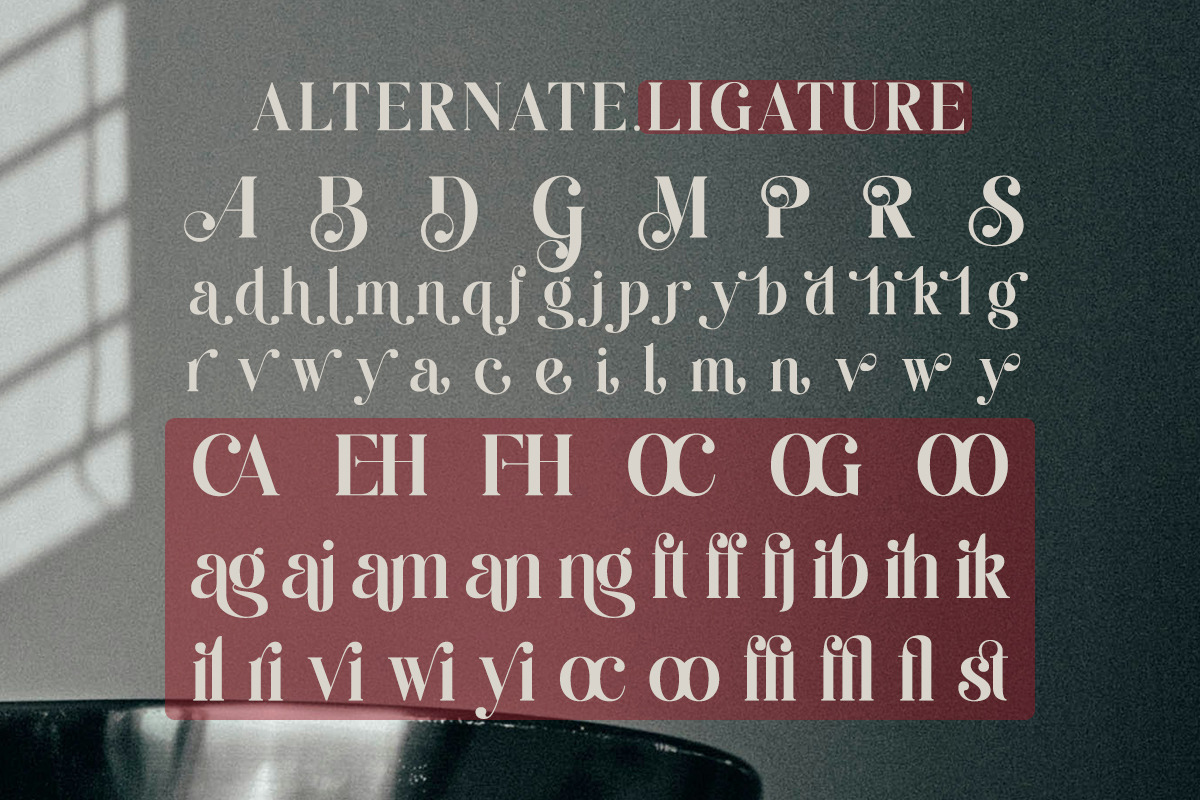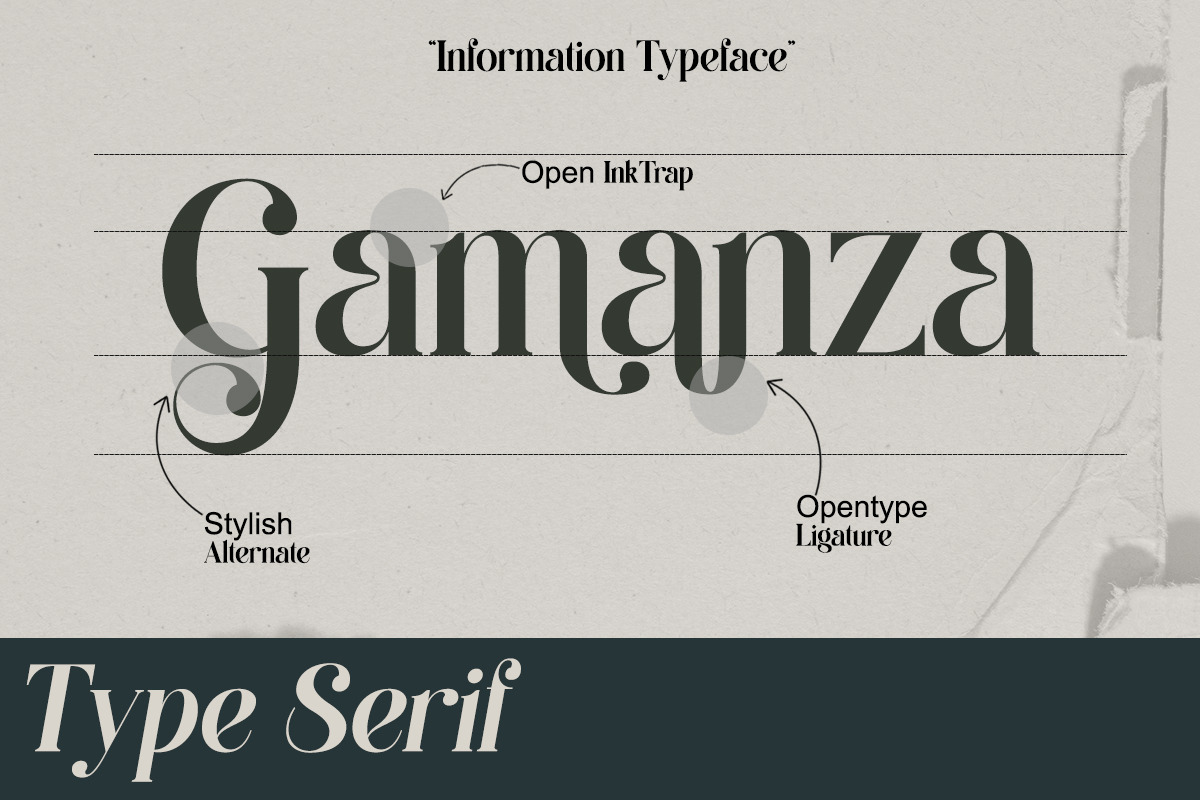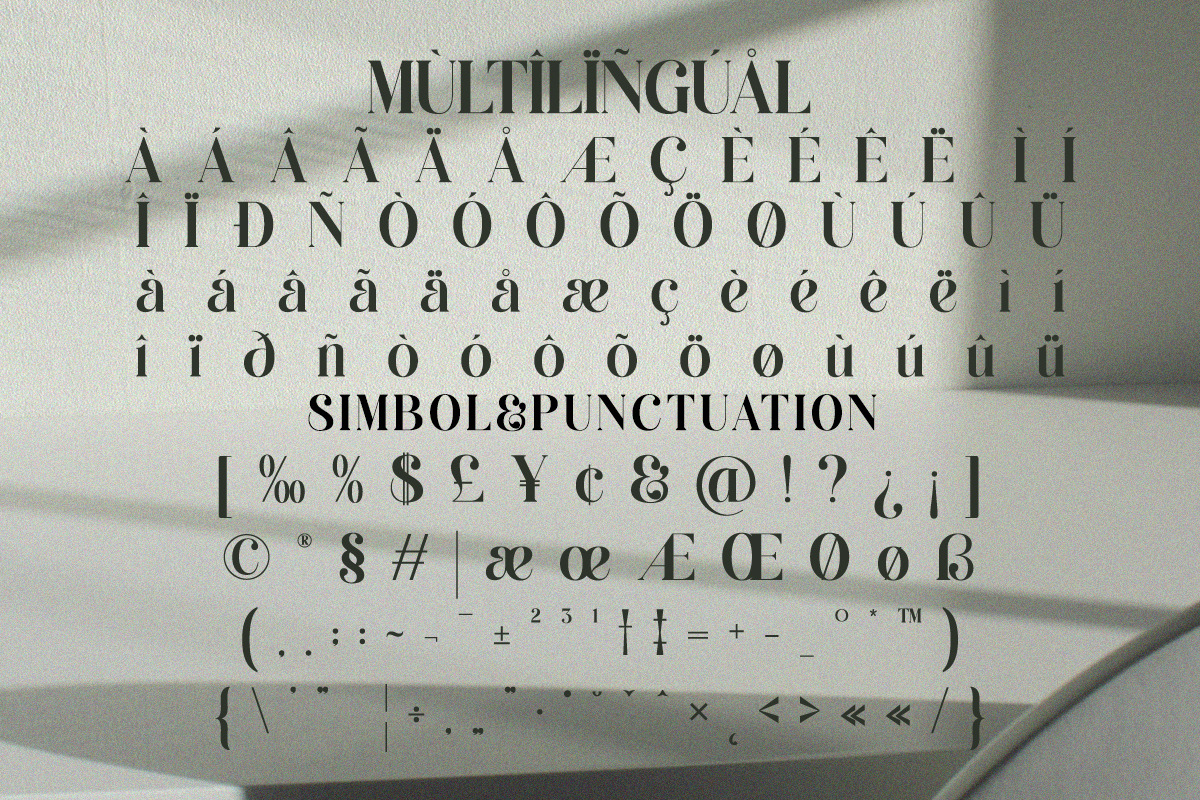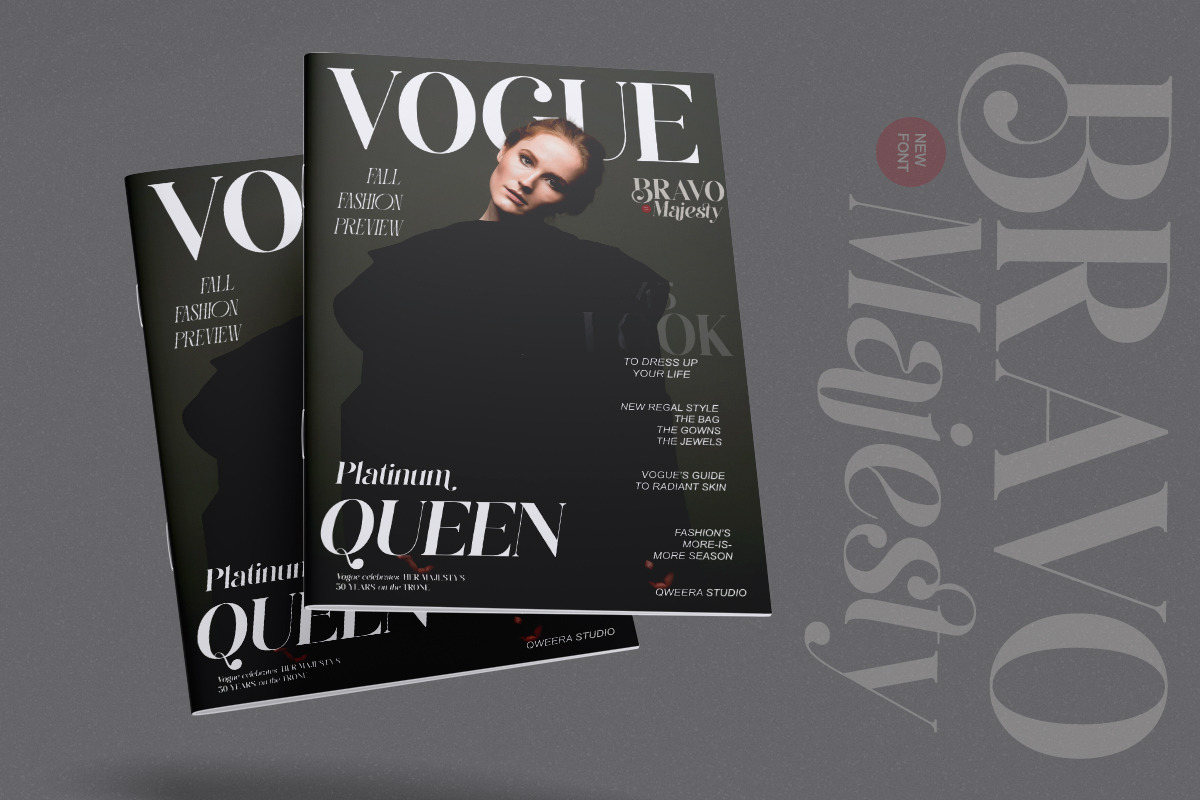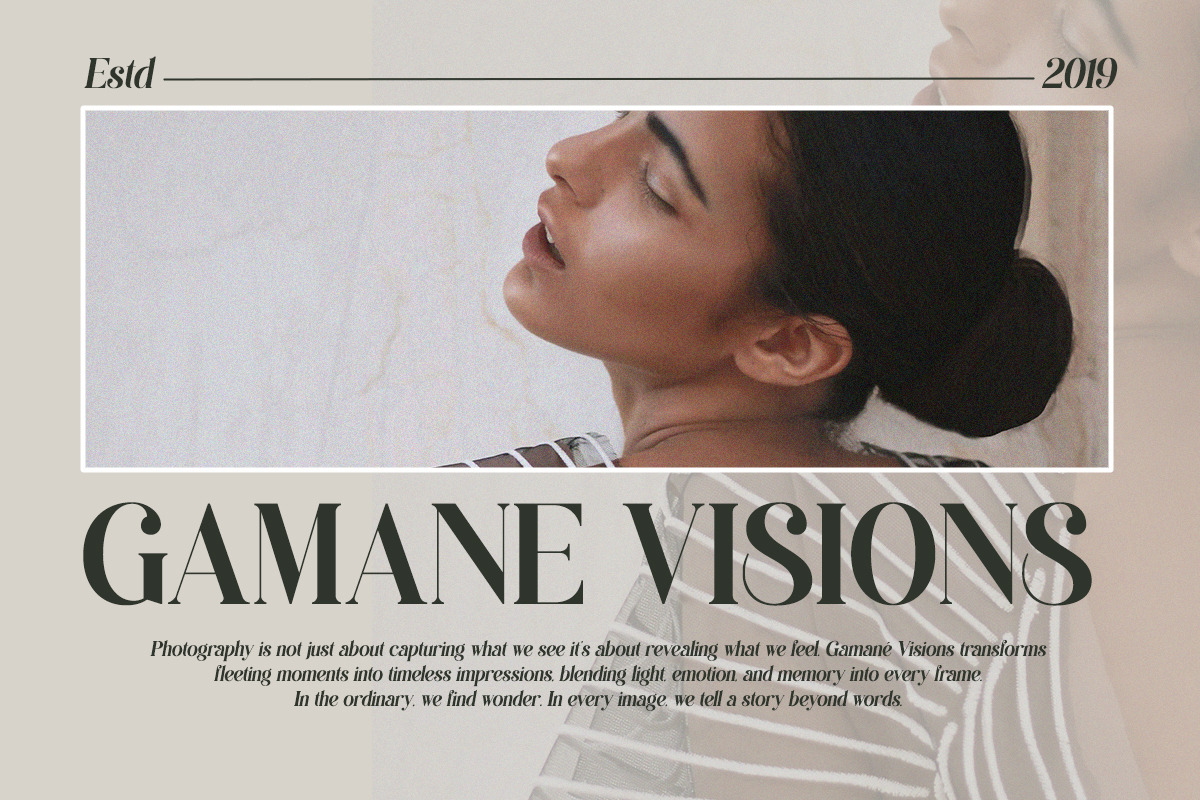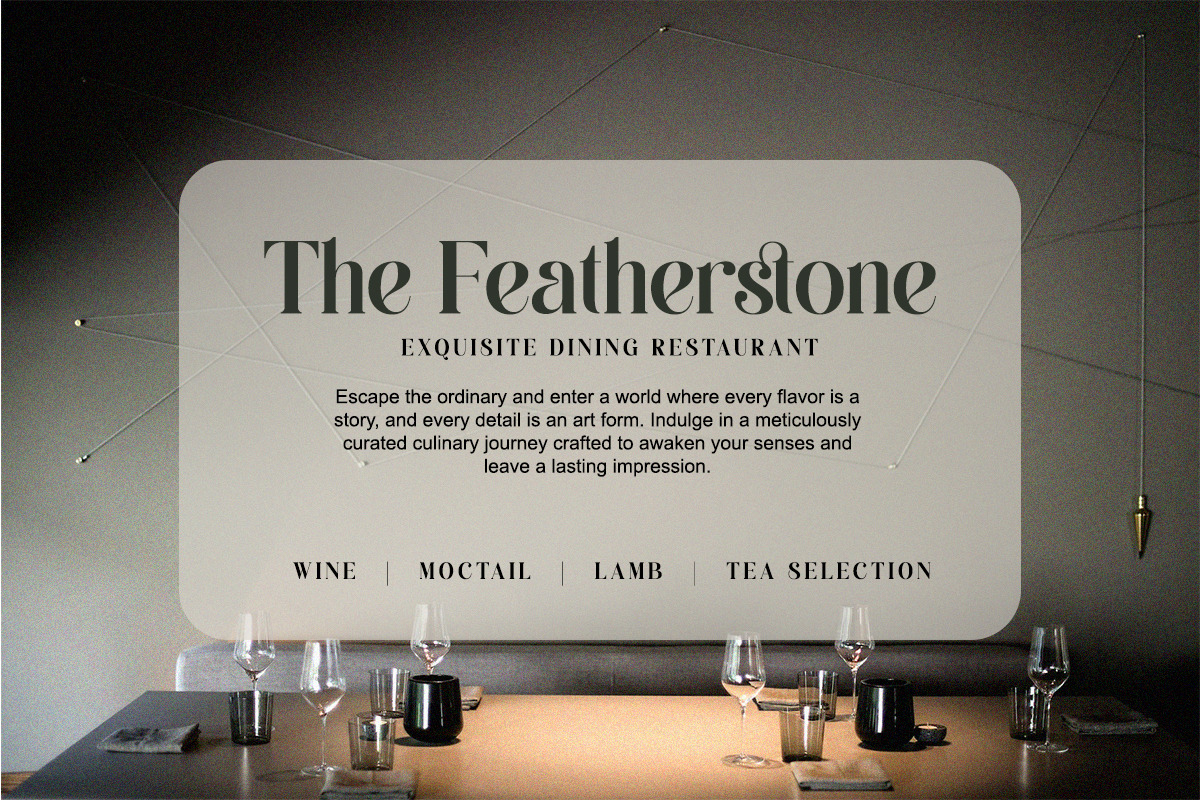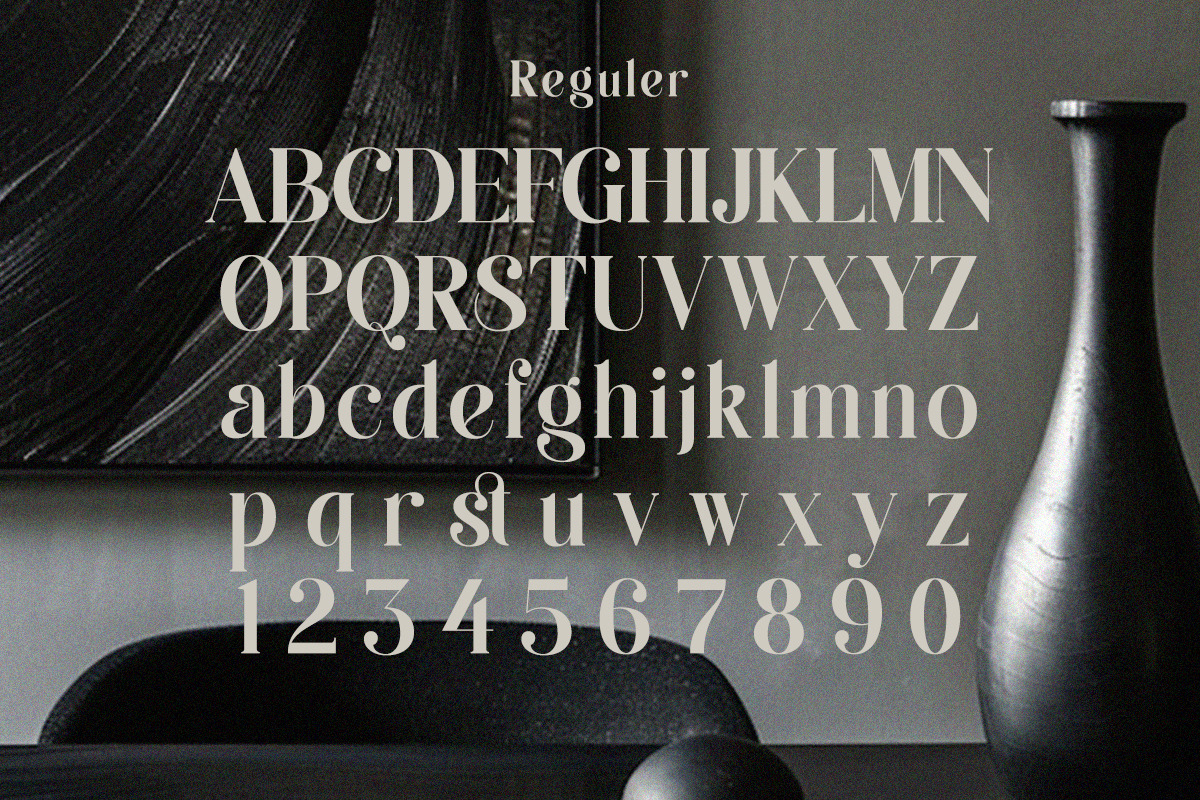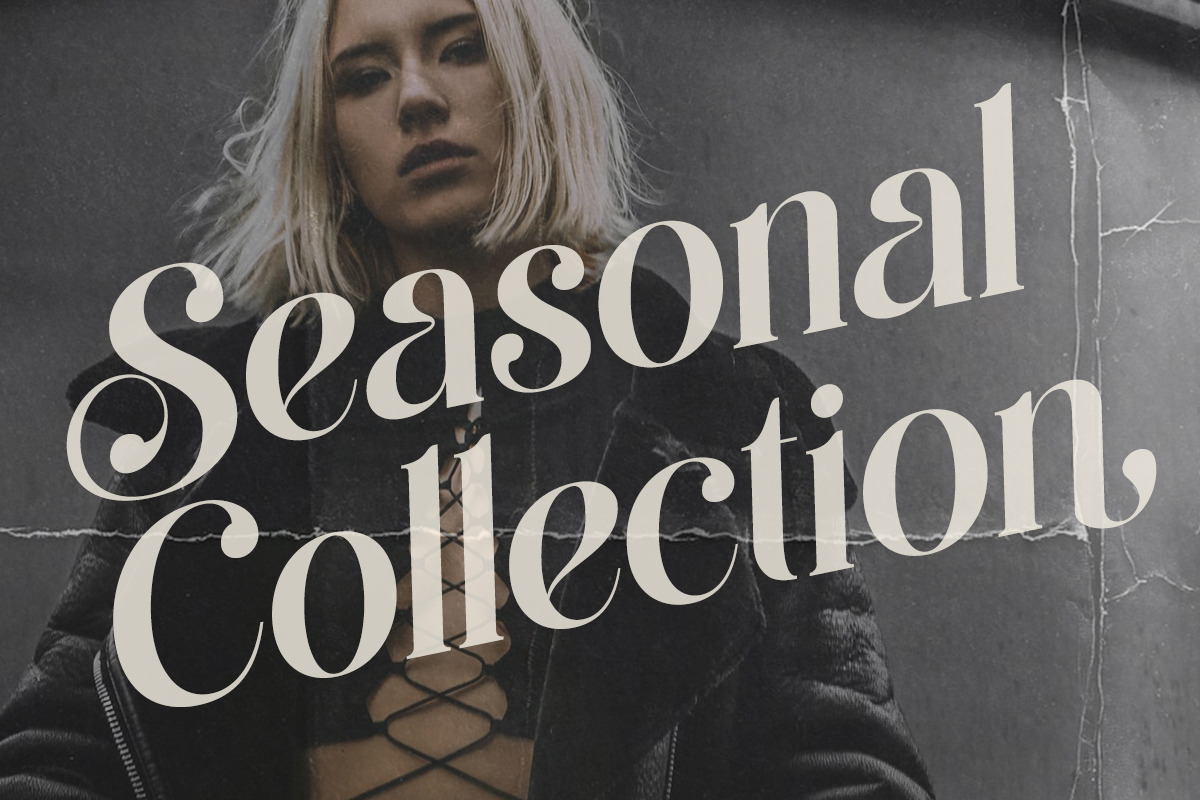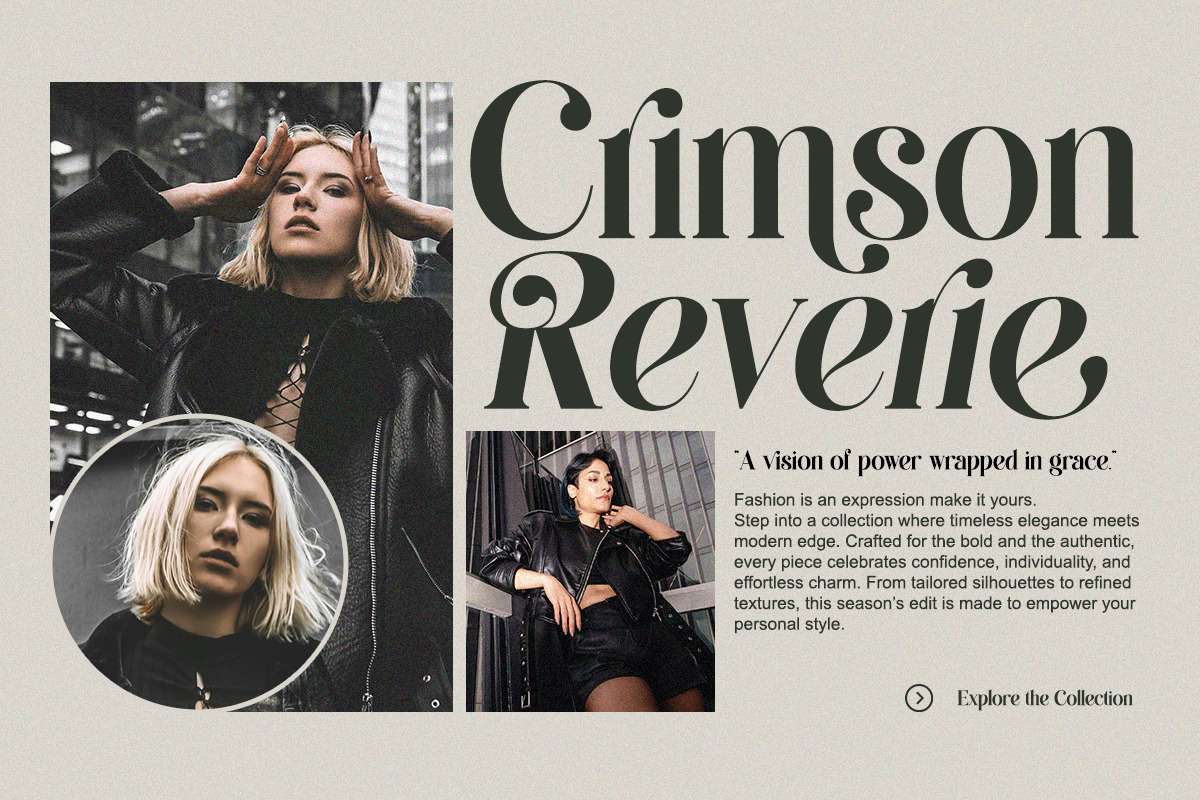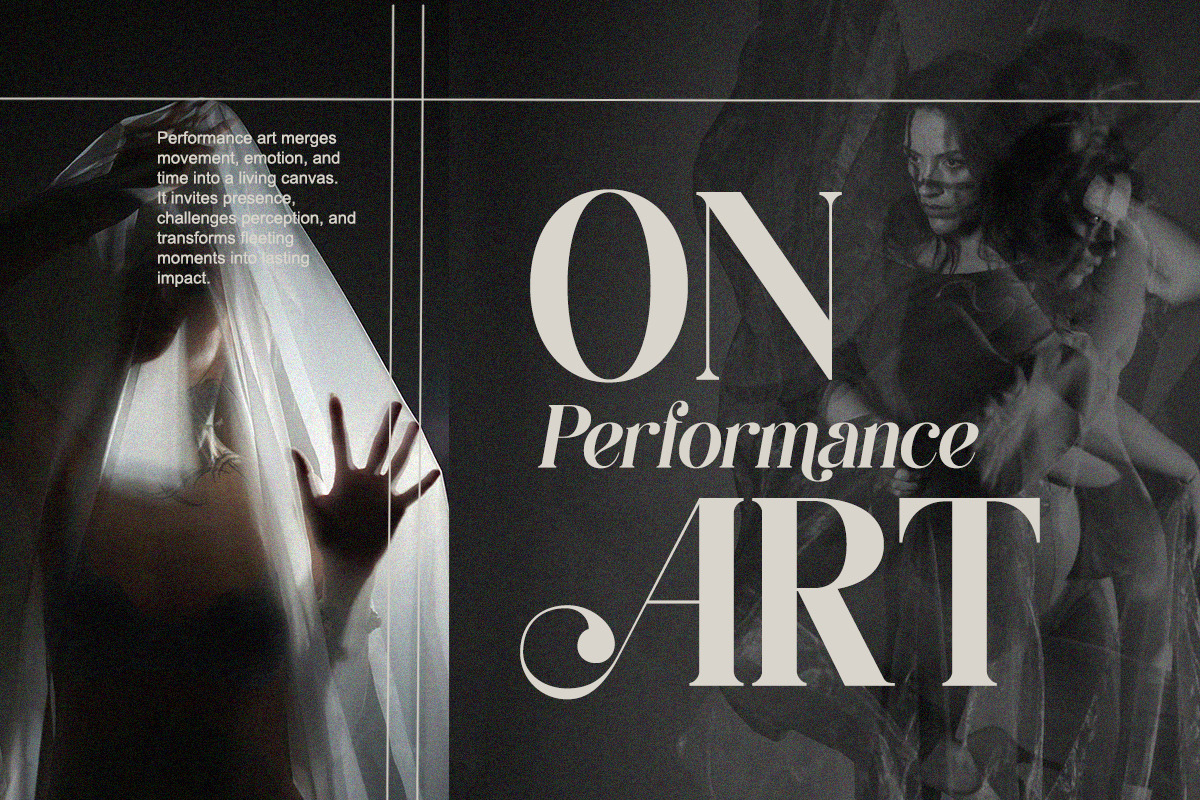
Bravo Majesty - Modern Elegant Serif
Introducing Bravo Majesty – Modern Elegant Serif Font, a typeface crafted to bring bold sophistication and refined charm into your creative projects. Combining modern elegance with timeless serif structure, Bravo Majesty stands out with its graceful curves, stylish alternates, and versatile ligatures.
This font is designed for designers and brands who want to achieve a luxury, classy, and professional look. Its elegant strokes and high-contrast details make it perfect for fashion branding, logos, product packaging, magazines, and editorial headlines.
Bravo Majesty offers alternates, ligatures, and italic style for flexibility, giving you endless possibilities to create unique typographic compositions. With multilingual support and complete character sets, this font ensures global usability for diverse projects.
Make your work memorable and timeless with Bravo Majesty – the serif font that embodies sophistication and modern artistry.
✨ Font Features
- Regular & Italic
- Alternates & ligatures
- Italic style included
🎯 Perfect For
- Branding & logo design
- Luxury packaging
- Fashion & editorial projects
- Wedding invitations & stationery
- Modern websites & blogs
- Creative advertising campaigns